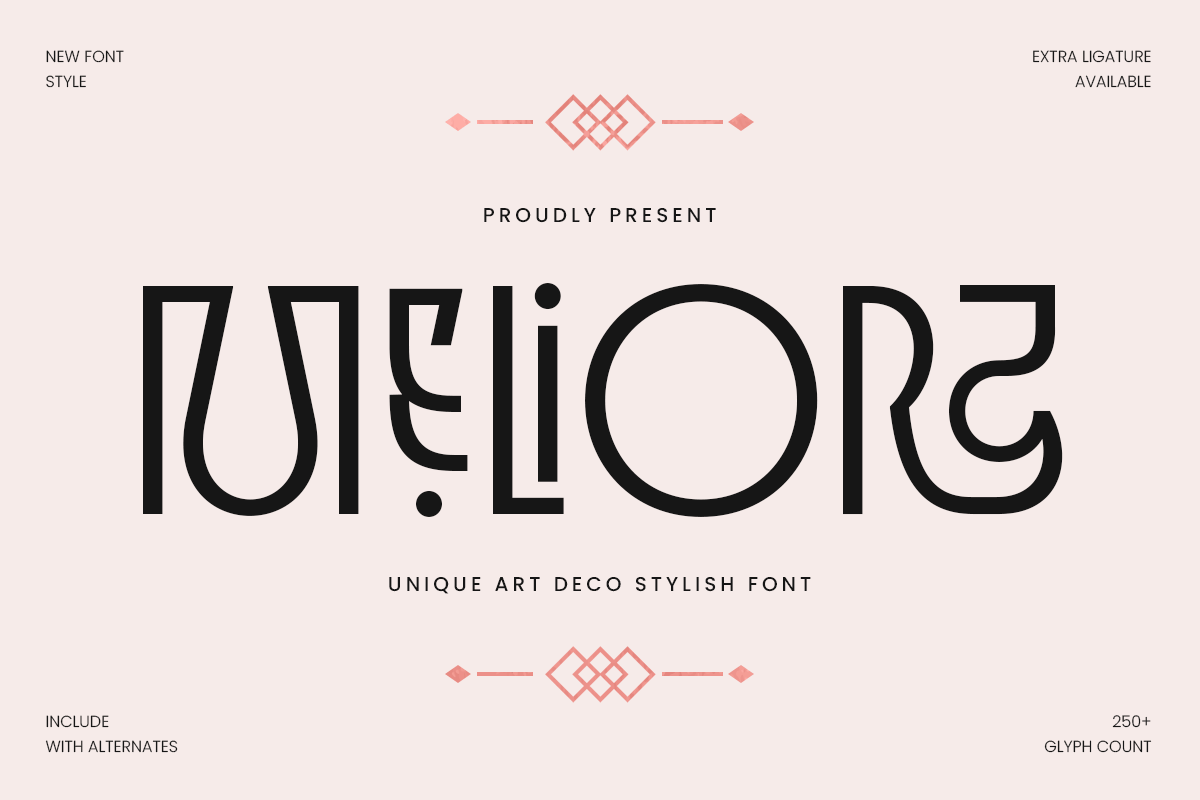
Meliora
-Unique Art Deco Stylish Font
Meliora - Unique Art Deco Stylish Font
MELIORA is a unique art deco stylish font that captures the essence of timeless elegance and modern refinement. Inspired by the geometric forms and ornamental beauty of the Art Deco era, this typeface blends luxury with contemporary design—making it perfect for high-end branding, editorials, and creative campaigns.
With its sleek lines, symmetrical balance, and sophisticated character shapes, MELIORA adds an instant sense of glamour to logos, invitations, posters, and packaging. It’s ideal for fashion brands, jewelry design, beauty products, and event promotions that demand a touch of exclusivity and style.
Each letter of MELIORA is crafted with precision, allowing it to stand out in both digital and print formats. Its unique combination of vintage charm and modern elegance makes it a versatile choice for designers seeking a decorative yet professional display font.
MELIORA – Unique Art Deco Stylish Font Features
• Elegant Art Deco–inspired typeface with stylish details
• Perfect for logos, invitations, posters, and luxury branding
• Combines vintage sophistication with modern minimalism
• Great for fashion, jewelry, beauty, and editorial design
• OpenType features for advanced typographic creativity
Bring timeless elegance to your work with MELIORA – the ultimate art deco stylish font for luxury branding, fashion, and creative design. ✨